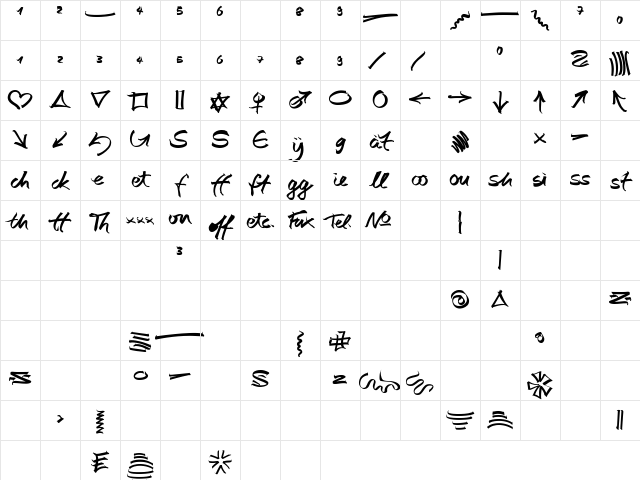
Complete AutographScriptEF-BoldExtras Regular glyph index. Displaying only characters natively supported by AutographScriptEF-BoldExtras Regular font.
AutographScriptEF-BoldExtras flows with the natural rhythm of handwritten lettering, making it ideal for designs that call for warmth and personal expression. Its bold stroke weight gives it real presence on the page.
Font Pairing: Combine AutographScriptEF-BoldExtras with a simple geometric sans for maximum contrast - the tension between flowing curves and clean structure is a classic typographic pairing.
Pro Tip: Use AutographScriptEF-BoldExtras for short runs of text - names, titles, or taglines. Extended body copy in script faces tires the eye quickly.